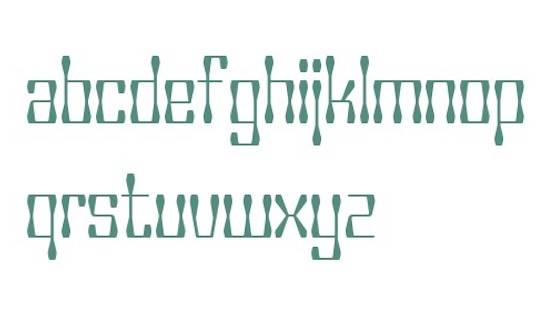
Tink Font
About Tink font. This is a special fancy typeface. It was designed and released by Suomi Type Foundry. Along with a novelty style. People love to use this font in view of its simplicity of installation and ease of apply also. And if you want to download this remarkable font then you just click on the download button below and use it for your personal purposes. This versatile typeface is ideal for product packaging, quotes, apparel, hoodies, logos, T-shirts, and more.